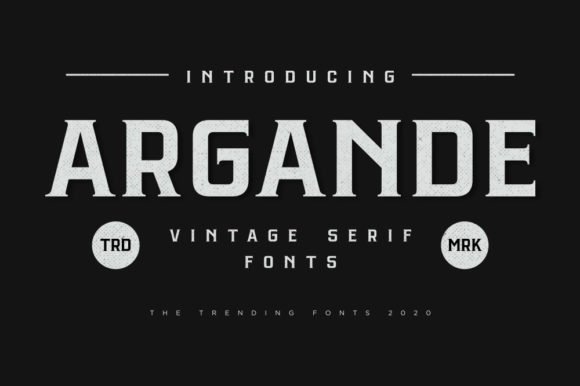
Introduction to Argande Font
Argande is a distinct, elegant serif font.
It feels playfully nostalgic and delivers an incredible vintage aesthetic Use it to add that special retro touch to any design idea you can think of.
Argande Font offers exceptional quality and versatility, making it a valuable addition to your design toolkit. Whether you’re creating for personal projects or commercial use, Argande Font delivers professional results.